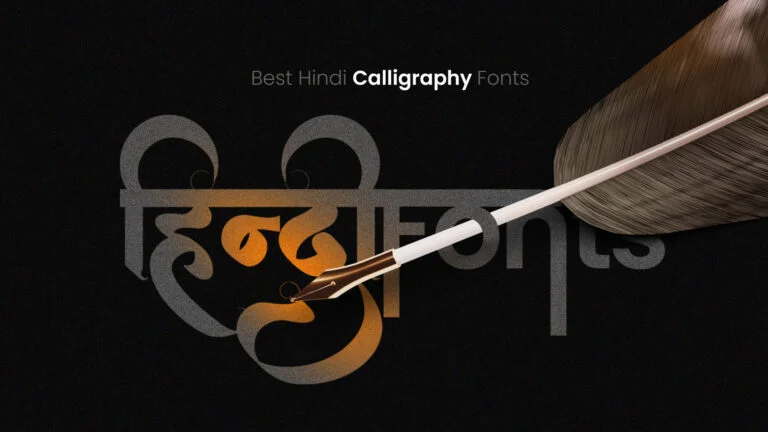
Browse a unique collection of most downloaded beautiful and stylish hindi calligraphy fonts.
It is very important to make your social media designs interesting with the help of fonts especially if you are using Hindi. Handwriting fonts, especially the beautiful calligraphy ones, can take your designs to another higher level with a professional touch.
Here are some best Hindi calligraphy fonts for social media designs which are available for free download in this blog post. It is important to note that these fonts are available in a wide variety of styles that one can choose from in their particular project.
AMS Aakash Font
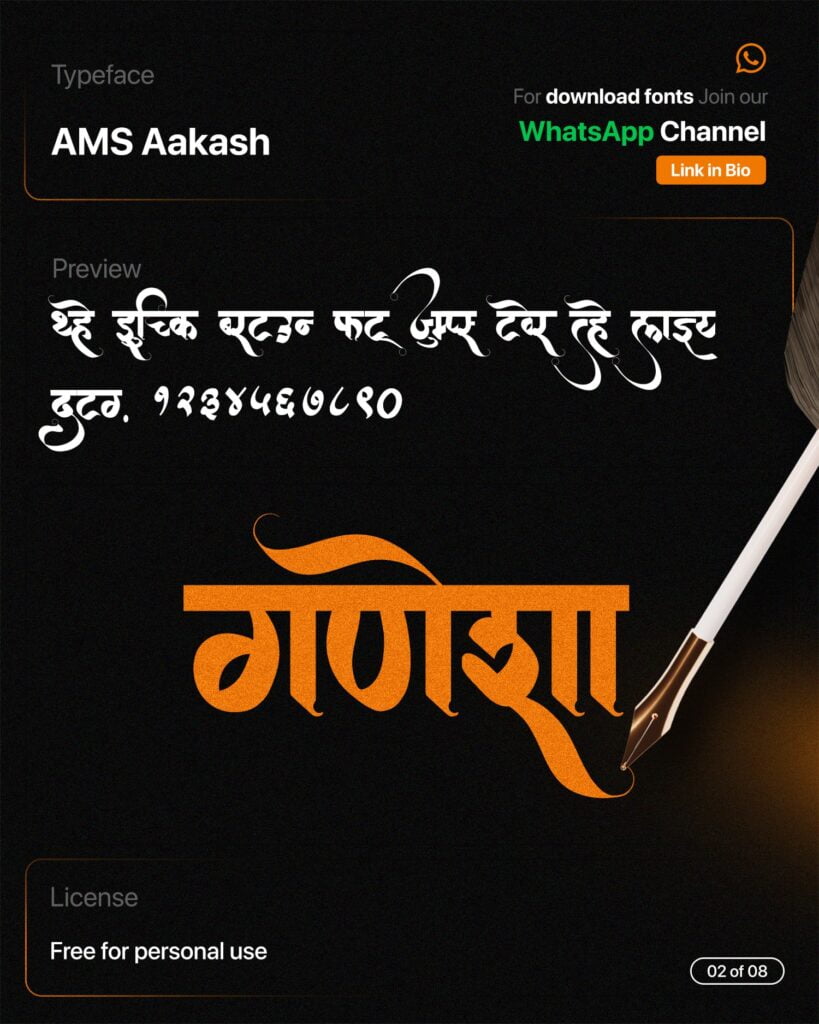
AMS Aakul 5 Font
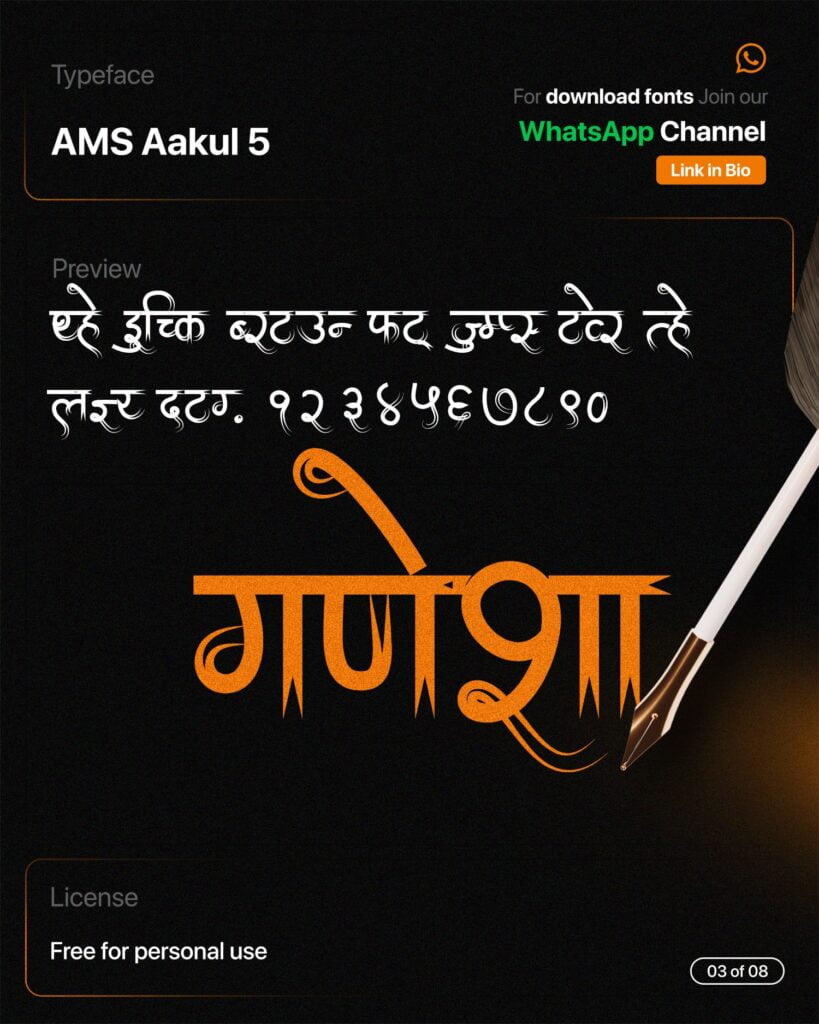
AMS Aakul 7 Font
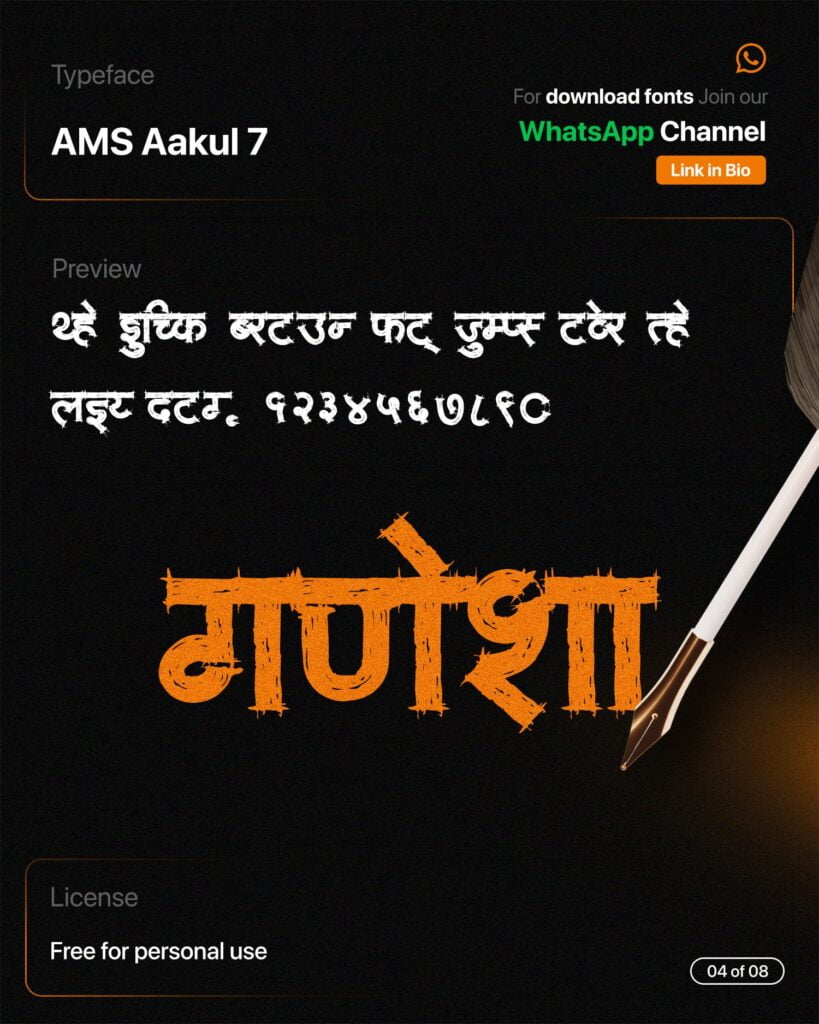
AMS Chandrakant Font
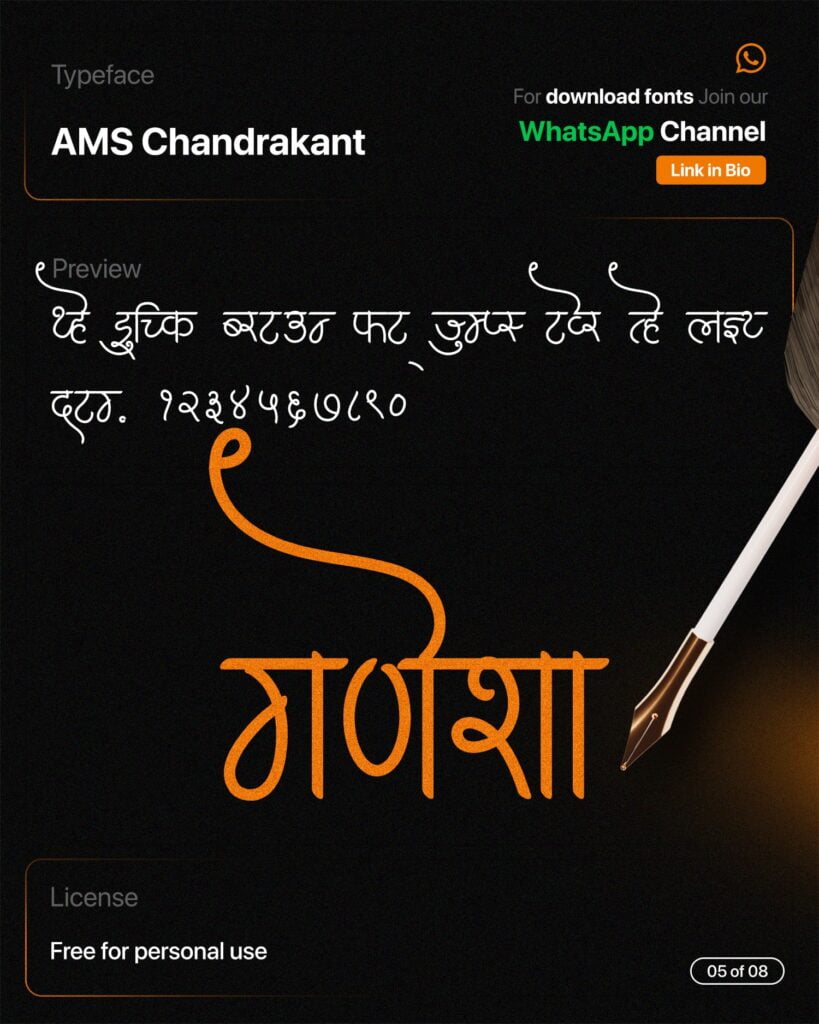
AMS Manthan Font
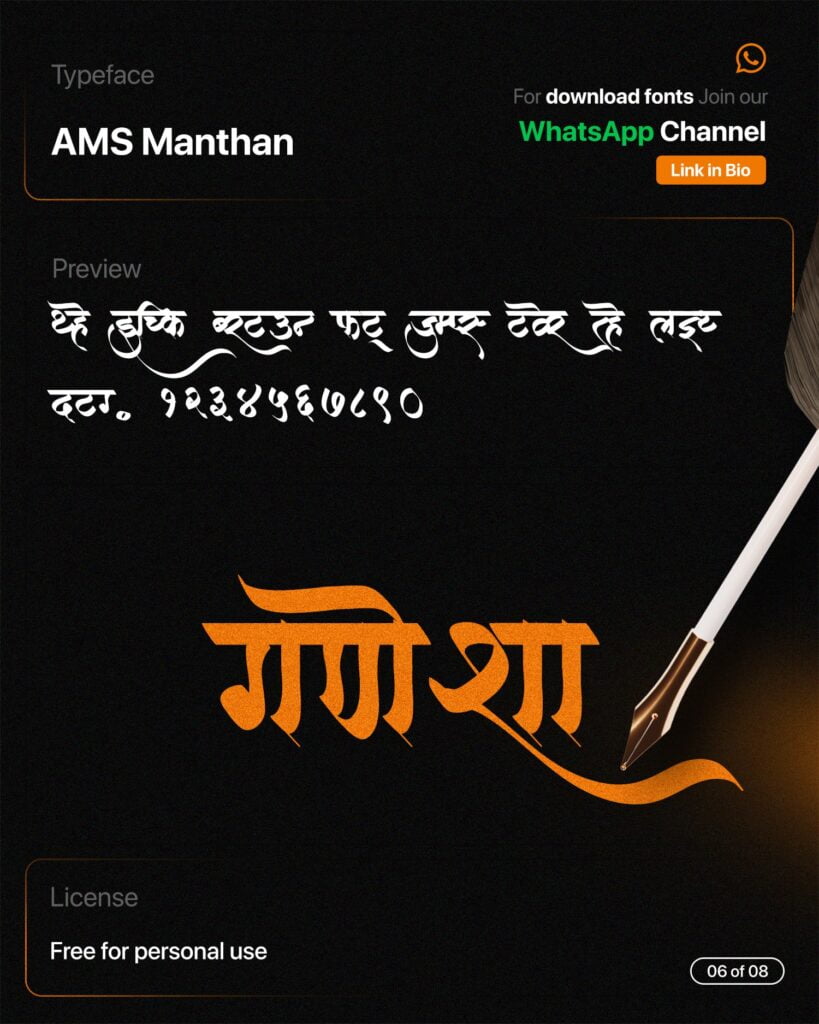
AMS Aakul 4 Font